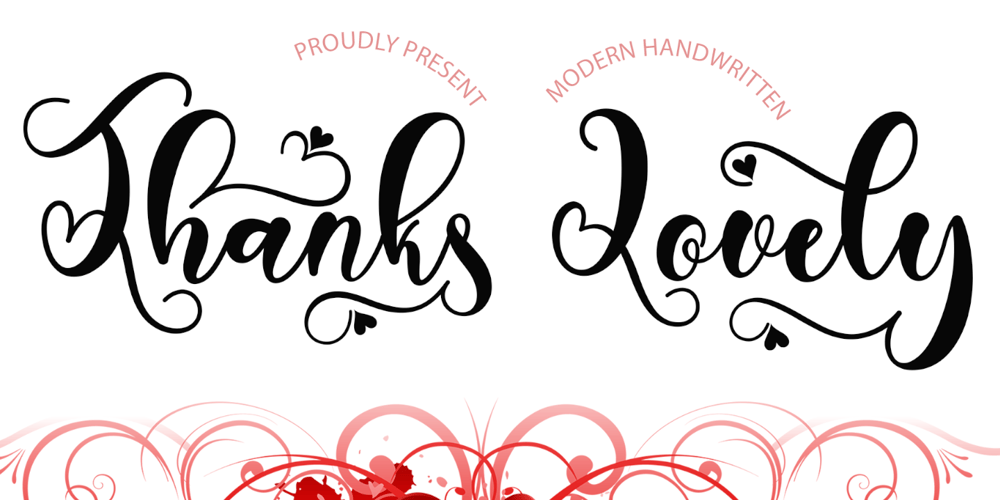
Thanks Lovely Font Family was designed by Isroni Yoga Prasetya and published by Yoga Letter. Thanks Lovely contains 1 styles and family package options. “Thanks Lovely” is a modern handwritten font, featuring a decorated heart on each character. It’s perfect for Valentine’s Day, Christmas, Thanksgiving, weddings, invitations and more. This font is PUA coded which means you can find all glyphs and glyphs easily!